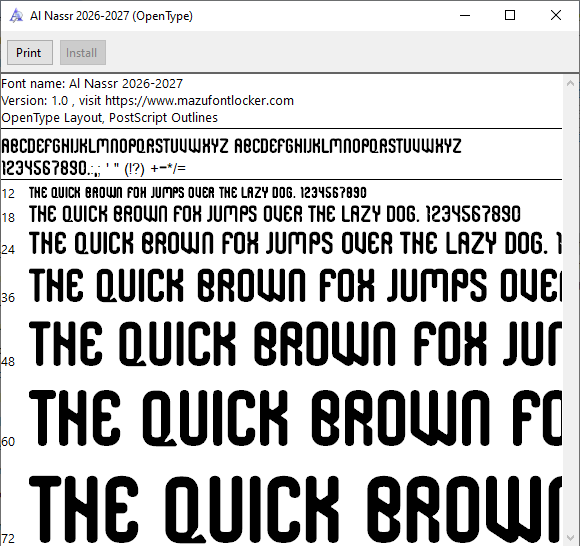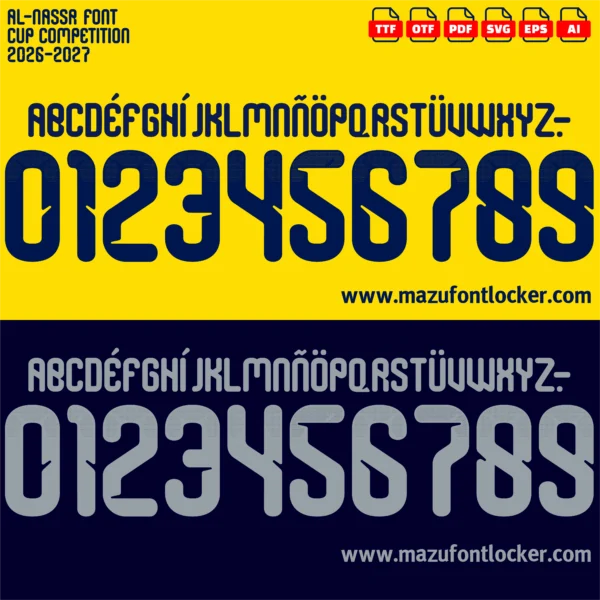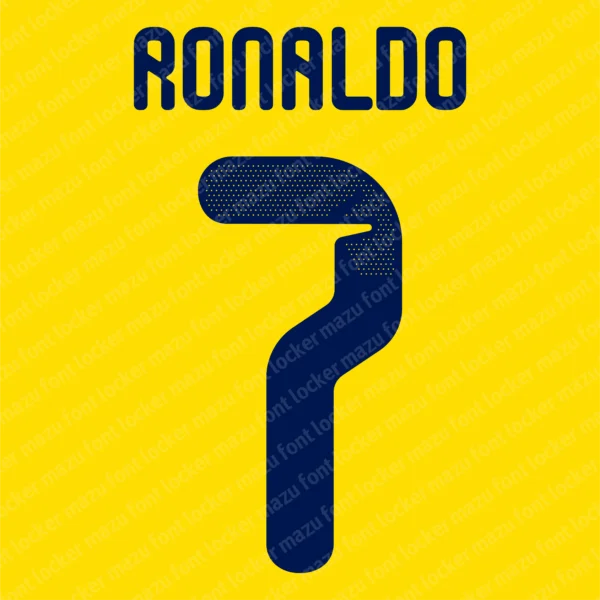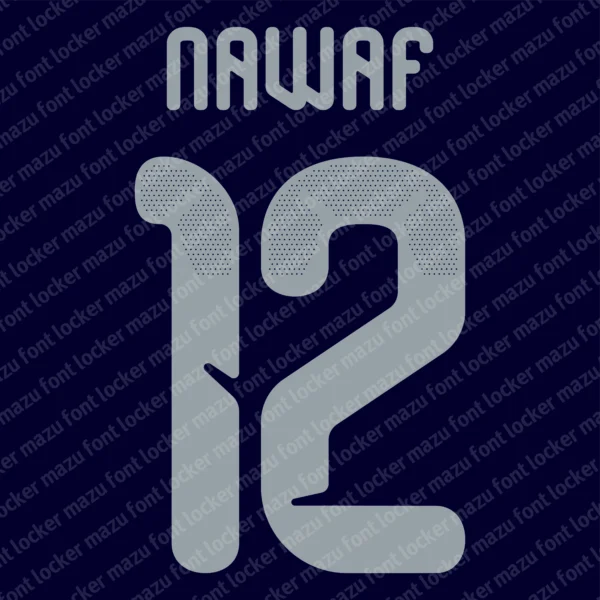
Al-Nassr 2026-2027 Font Vector – Epic Yellow Victory Masterpiece
This font captures the commanding, steel-sharp, lightning-strike, and precision-engineered lettering that perfectly embodies Al-Nassr’s iconic club identity, proud Saudi Arabian & Riyadh heritage, never-back-down mentality, and raw football power — delivering unmatched authenticity, premium quality, explosive energy, and elite Saudi Pro League & AFC Champions League dominance for professional jersey mockups, dynamic football graphics, premium sports branding, passionate fan creations, and high-end design projects.
Al-Nassr 2026-2027 Font Vector – Iconic Yellow & Blue Typeface
The Al-Nassr 2026-2027 Font Vector is a premium typeface that accurately recreates the official match lettering worn by Al-Nassr Football Club during the 2026-2027 seasons. This high-quality vector font kit captures the bold, clean, and instantly recognizable typography that perfectly complements the club’s iconic yellow and blue identity.
Designed for professional designers, football enthusiasts, and passionate Al-Nassr supporters, the Al-Nassr 2026-2027 Font Vector delivers exceptional authenticity for creating realistic jersey mockups, football merchandise, social media graphics, match posters, and custom fan artwork. Every character has been carefully recreated to match the powerful and precise visual style of one of Saudi Arabia’s most successful and historic football clubs.
Why Choose Al-Nassr 2026-2027 Font Vector
This font stands out thanks to its precise vector construction and authentic club styling. Every letter and numeral has been meticulously recreated to match the official shirt lettering used throughout the 2026-2027 Saudi Pro League, AFC Champions League Elite, and domestic campaigns. Whether you’re producing professional kit templates or creating eye-catching football content, the Al-Nassr 2026-2027 Font Vector delivers a genuine match-ready appearance.
The lettering featured in the Al-Nassr 2026-2027 Font Vector combines clean geometric lines with powerful modern proportions. The result is a premium and highly readable typeface that reflects Al-Nassr’s ambition, Riyadh pride, and passionate global fanbase across multiple seasons.
• Complete uppercase A–Z alphabet and numbers 0–9 in authentic Al-Nassr 2026-2027 style
Al-Nassr 2026-2027 Seasons
The 2026-2027 period marked an eventful chapter for Al-Nassr Football Club as they competed across the Saudi Pro League and AFC competitions with determination and ambition. Wearing their iconic yellow and blue colors, the club created memorable moments for their loyal supporters worldwide.